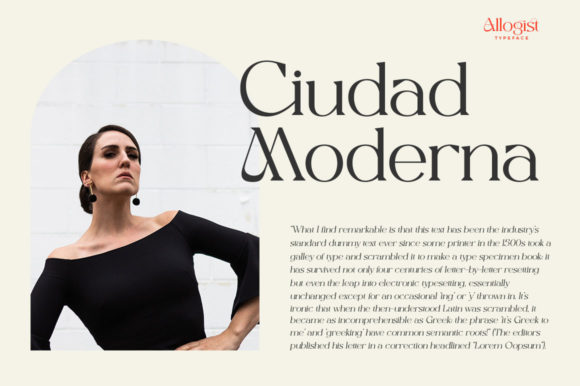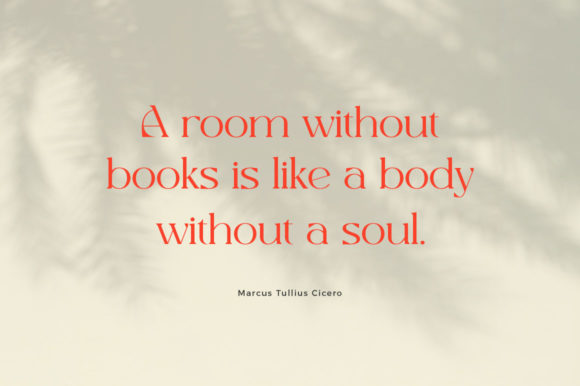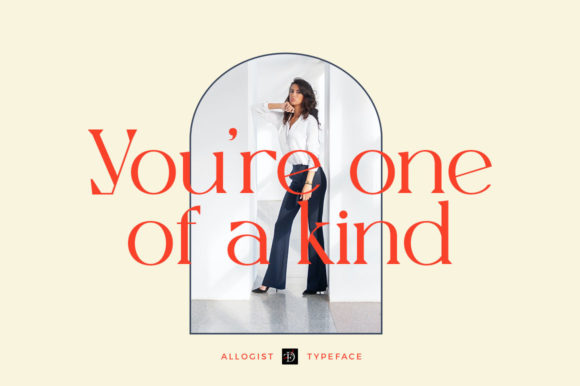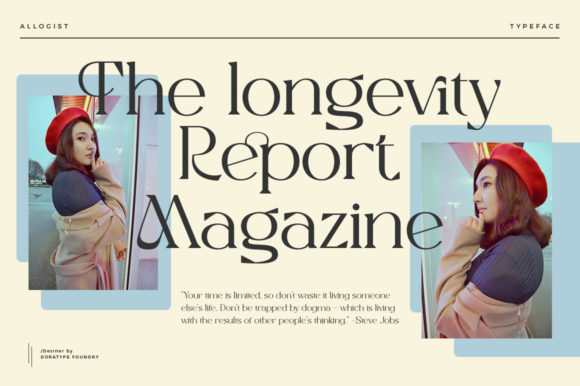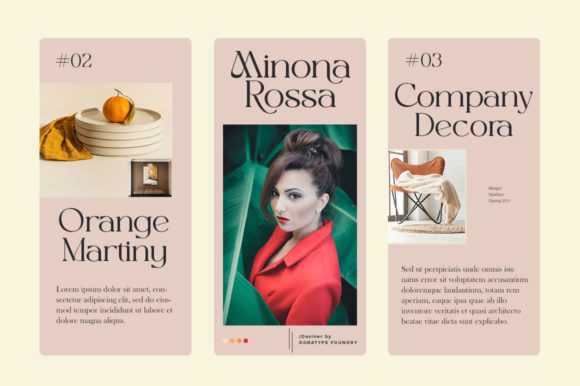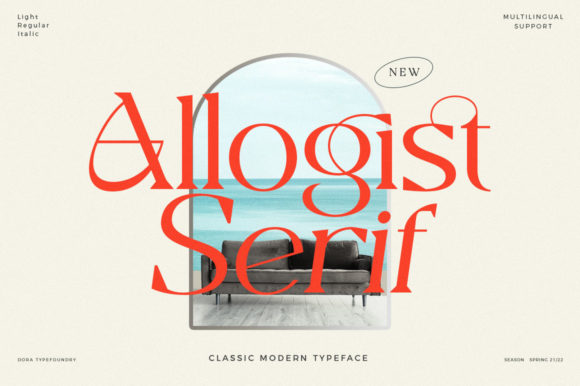
Introducing Allogist Font: Elevate Your Designs with Elegance and Charm
In the world of typography, the right font can make all the difference in transforming a design from ordinary to extraordinary. For designers and crafters seeking a serif font that exudes charm and sophistication, look no further than Allogist Font. This superb serif font is designed to add a touch of elegance to any design project, making it perfect for those who aim to create visually stunning and engaging content.
The Allure of Allogist Font
Allogist Font stands out with its classic serif design, which is both timeless and versatile. Its elegant strokes and beautiful curves make it an ideal choice for a wide range of design projects, from luxury branding and high-end product packaging to elegant stationery and captivating digital content. Whether you’re working on a project that requires a sophisticated look or simply want to add a touch of refinement to your designs, Allogist Font is sure to impress.
One of the key features that sets Allogist Font apart is its PUA (Private Use Area) encoding. This means that users can access all the glyphs and swashes with ease, offering unparalleled flexibility and creativity in design. PUA encoding allows designers to tap into a vast array of characters, including alternates, ligatures, and decorative swashes, making it simple to customize and enhance their typography. With Allogist Font, you can effortlessly create unique and captivating text that truly stands out.
The versatility of Allogist Font is one of its most compelling attributes. This font is not just limited to a specific style or genre; it can be seamlessly integrated into various design projects. Here are a few examples of how Allogist Font can elevate your designs:
- Branding and Logo Design: Create a lasting impression with a logo that embodies elegance and sophistication.
- Digital and Print Media: Enhance your website, blog, or print materials with beautiful typography that captures the reader’s attention.
- Stationery and Invitations: Add a touch of luxury to your business cards, letters, or event invitations.
- Packaging Design: Stand out on store shelves with product packaging that exudes quality and refinement.
Why Choose Allogist Font?
With so many fonts available, why should Allogist Font be your top choice? Here are a few reasons:
- Unique and Distinctive: Allogist Font offers a unique aesthetic that can help your designs stand out in a crowded marketplace.
- Ease of Use: Thanks to its PUA encoding, using Allogist Font is straightforward and hassle-free.
- Highly Versatile: Suitable for a wide range of design projects, from digital content to print materials.
- Professional and Elegant: Adds a professional and elegant touch to any design, ensuring your work looks polished and refined.
In conclusion, Allogist Font is a superb serif font that offers designers and crafters a charming and elegant solution for their typography needs. Its PUA encoding makes it easy to access a wide range of glyphs and swashes, allowing for endless creativity and customization. Whether you’re working on a luxury brand project, crafting beautiful stationery, or creating engaging digital content, Allogist Font is the perfect choice for adding a touch of sophistication and charm. Elevate your designs with Allogist Font and discover the difference that high-quality typography can make.